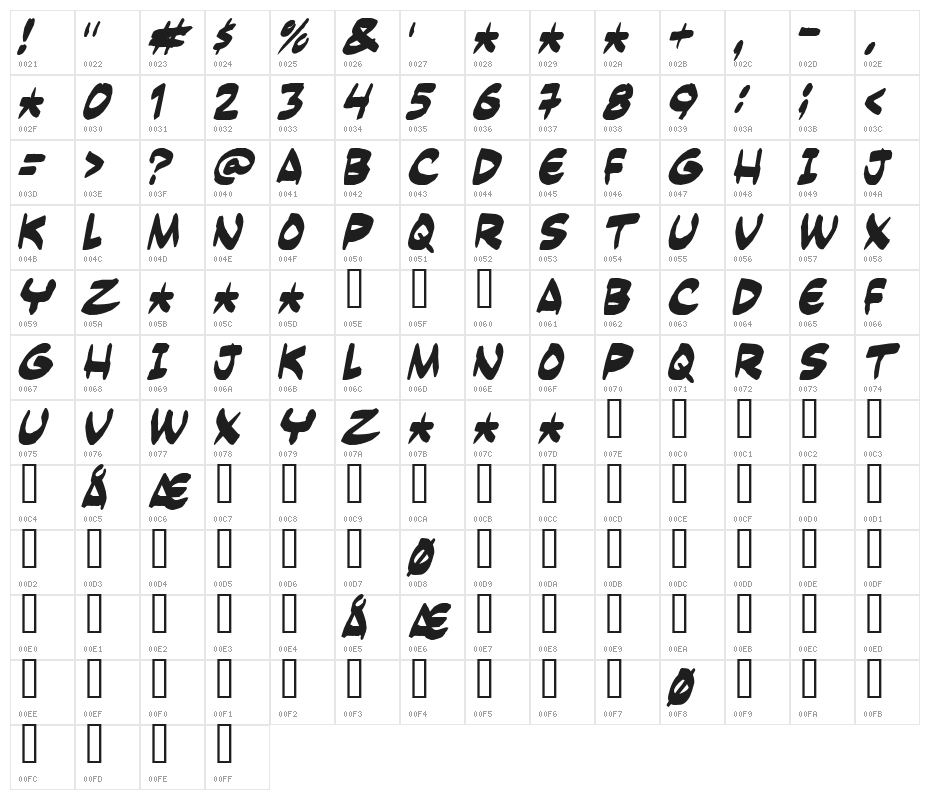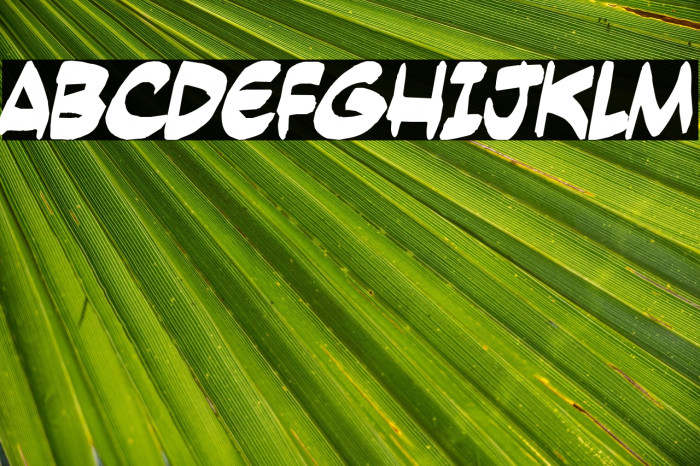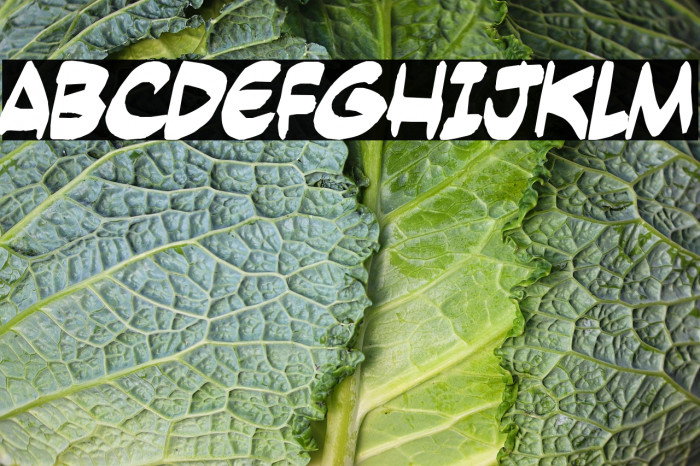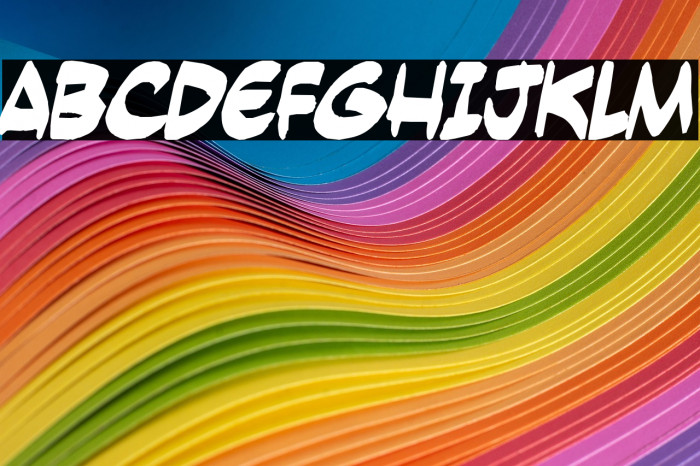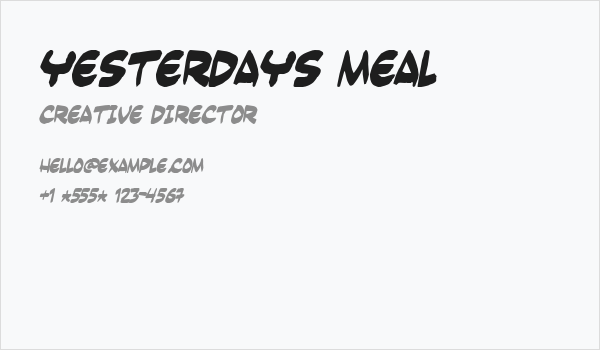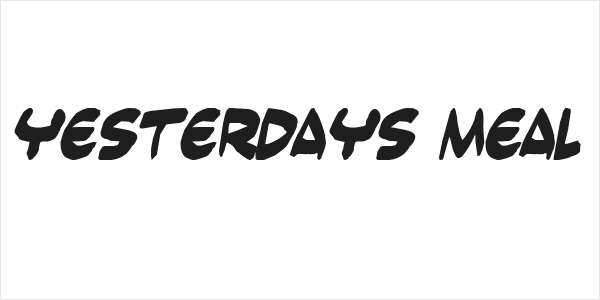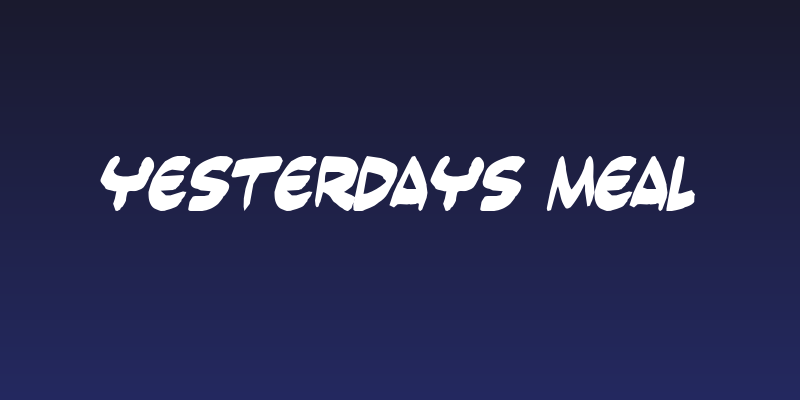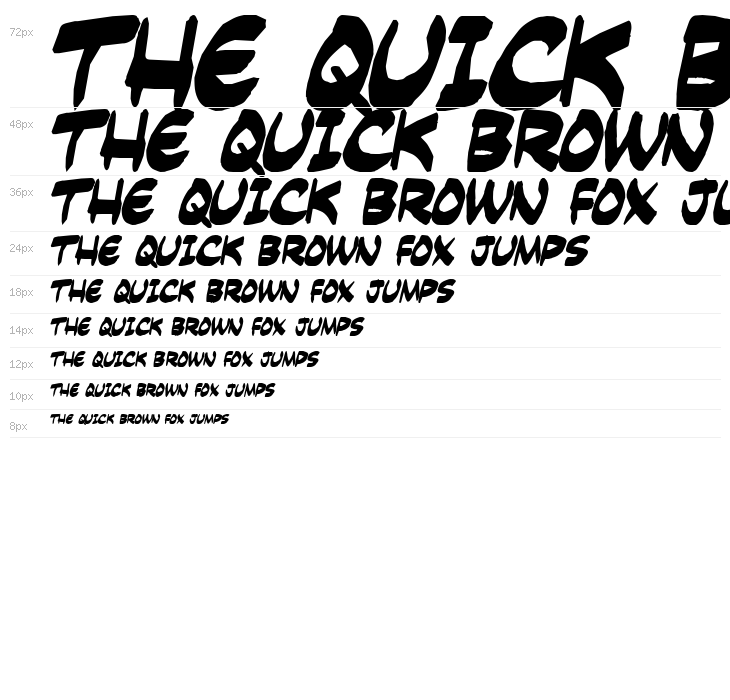
Yesterdays meal Font
Yesterdays meal Description
This font features a bold and dynamic style with a strong presence. The characters are crafted with a brush-like appearance, giving them an energetic and expressive feel. The strokes are thick and slightly irregular, adding a sense of movement and spontaneity. The uppercase and lowercase letters maintain a consistent style, while the numbers and special characters complement the overall design. This font is ideal for projects that require a bold and impactful statement, such as posters, headlines, and branding materials.
| Proposed Projects | Ideal for posters, headlines, branding, and any project needing a bold, energetic look. |